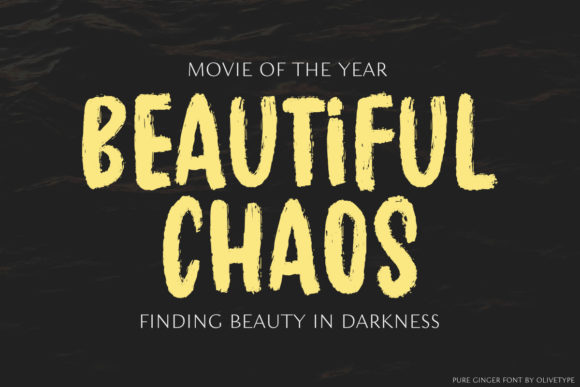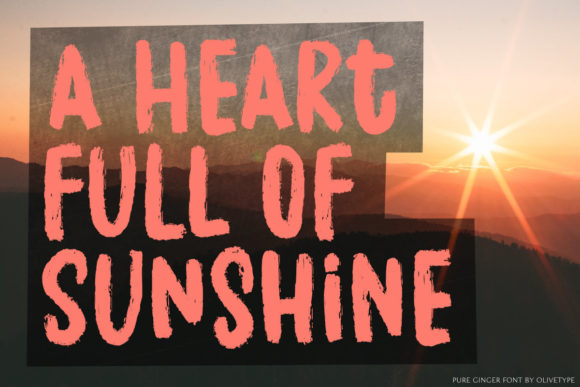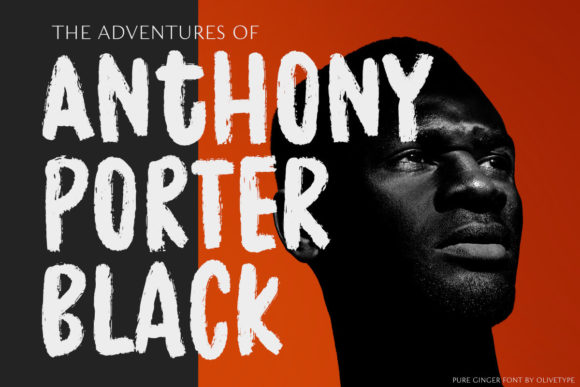
Introduction to Pure Ginger Font
Pure Ginger is a simple brush textured display font.
Clean and a little bit quirky, this font is the perfect fit for all of your logos, branding, social media, and crafty DIY projects .